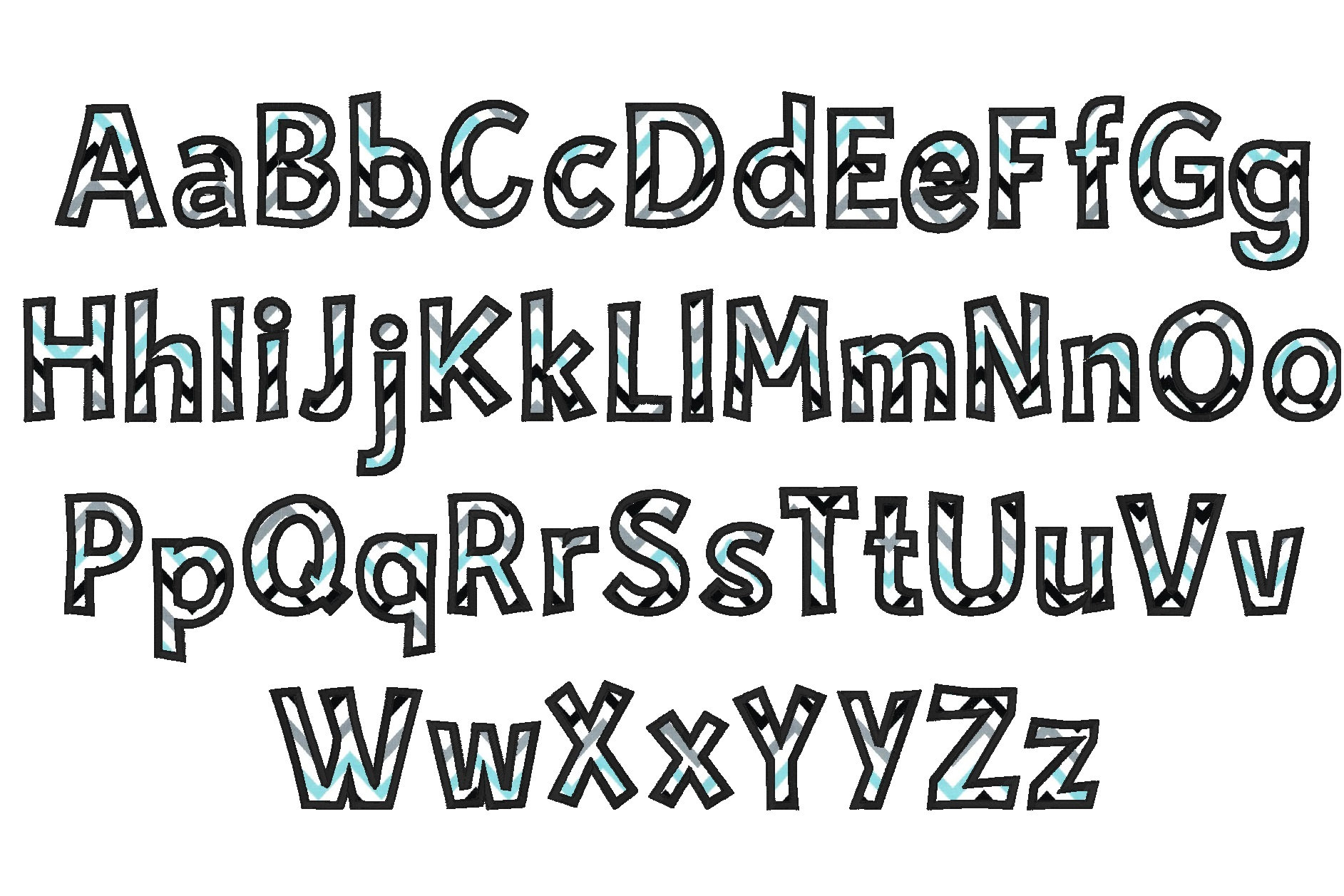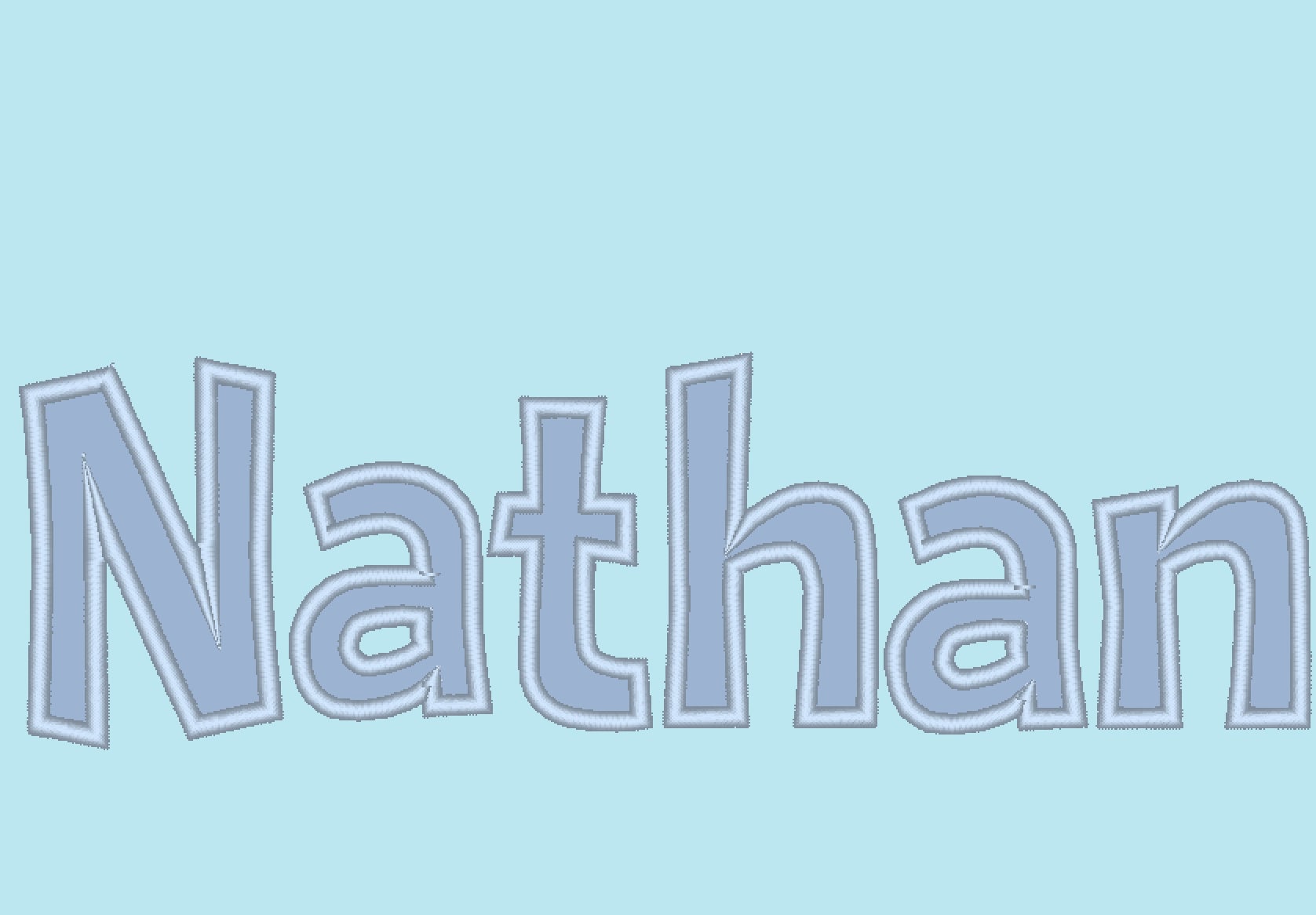
Monogram applique Font machine embroidery applique designs, monogram, alphabet, INSTANT DOWNLOAD - letters and numbers 2, 3 and 4 inches
This is applique alphabet, has wide appliqué satin covering stitch, easy to use and perfect for knit fabrics